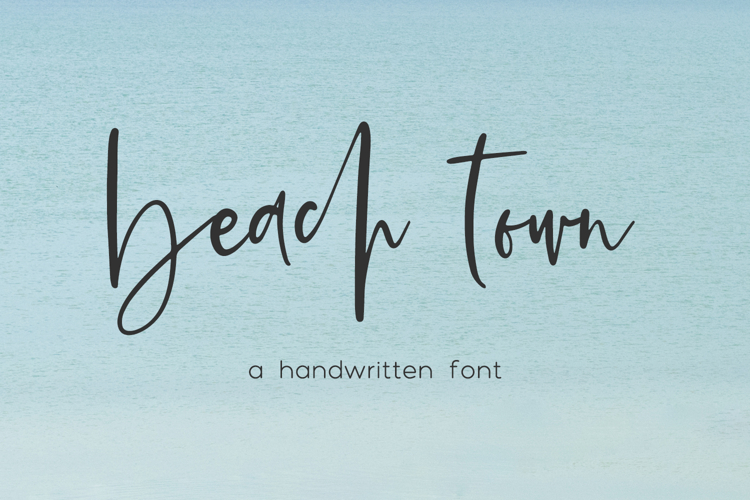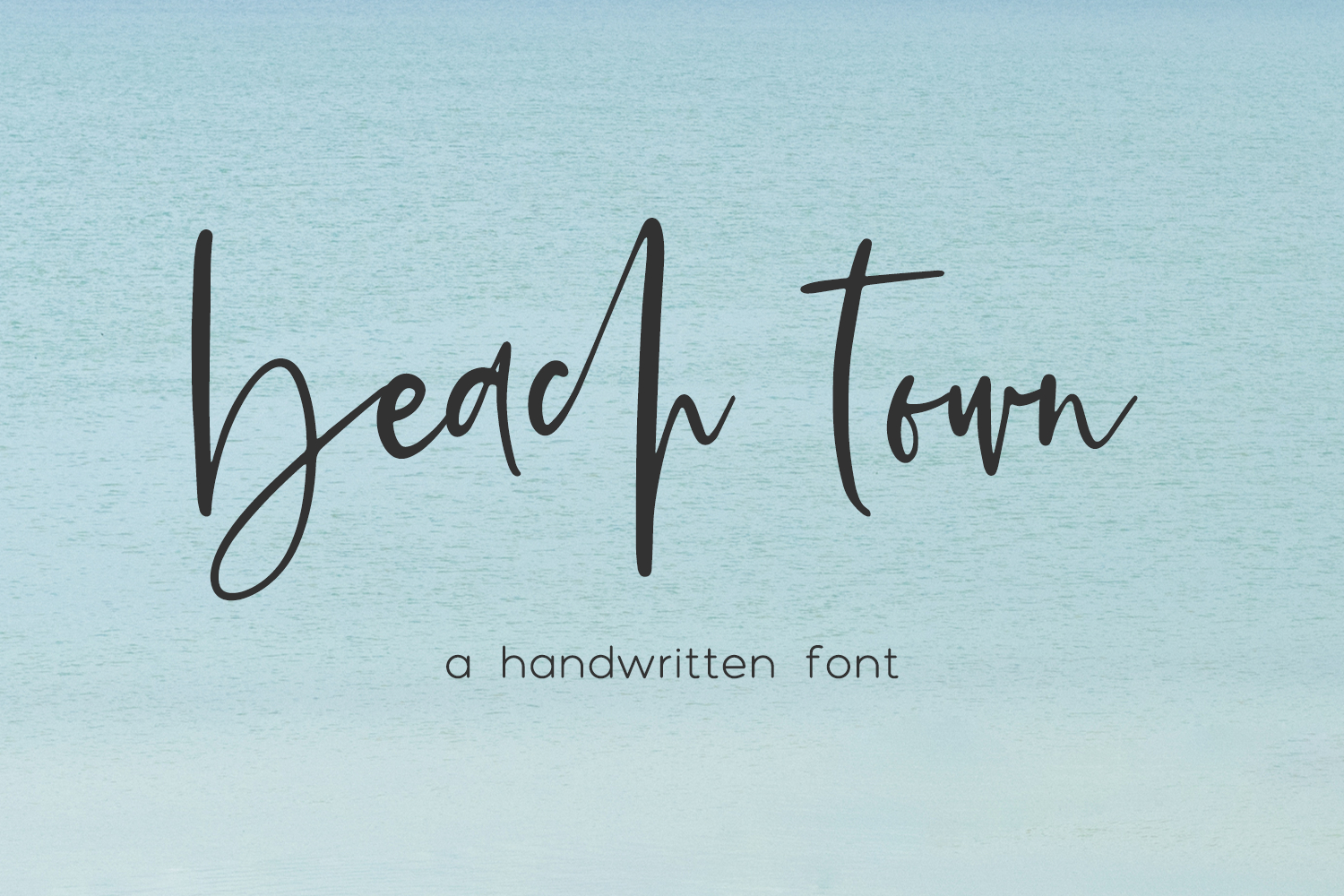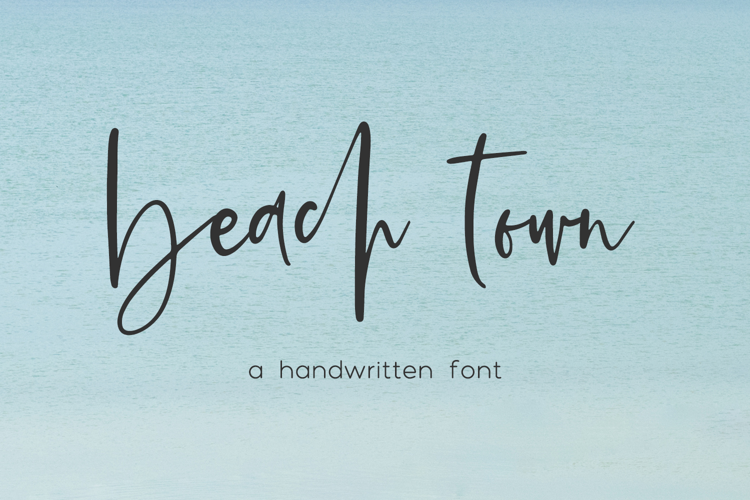
Introducing Beach Town Script, a handwritten signature style font. This chic, stylish font features a messy, casual look, mimicking handwriting.
Beach Town Script is best for:
- website design + website accents - think design blogs, travel blogs, fashion blogs, & more
Beach Town includes:
- 26 lowercase alternate characters
- 36 ligatures: am an ar at bb bl cc ch ck cl dd ee er ff fi fl fo gg ll mm nn of ol oo or ph pl pp rr sh ss st th tr tt ur